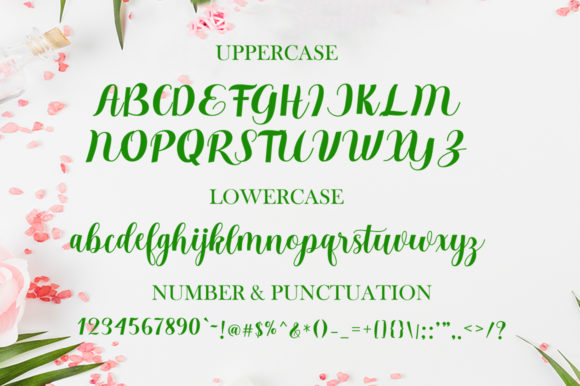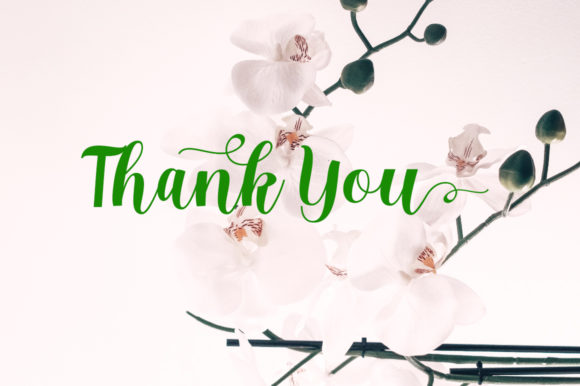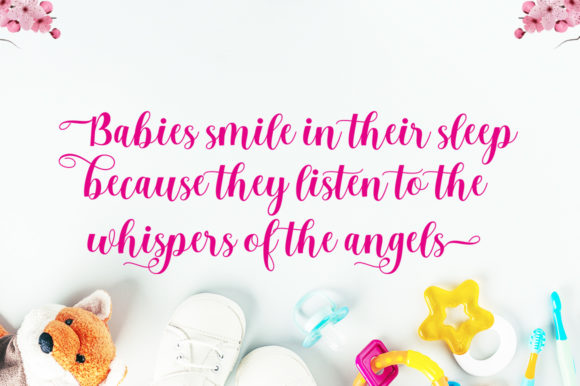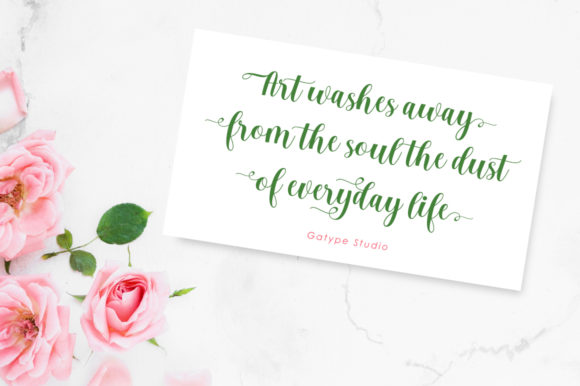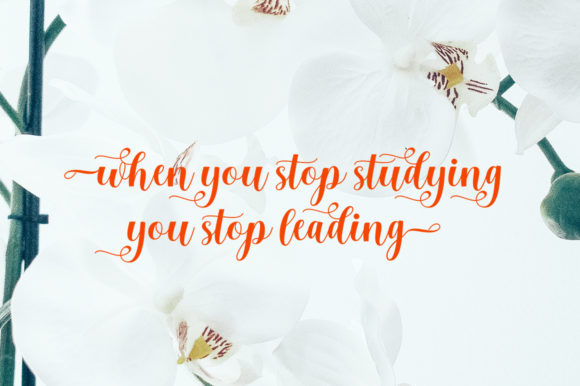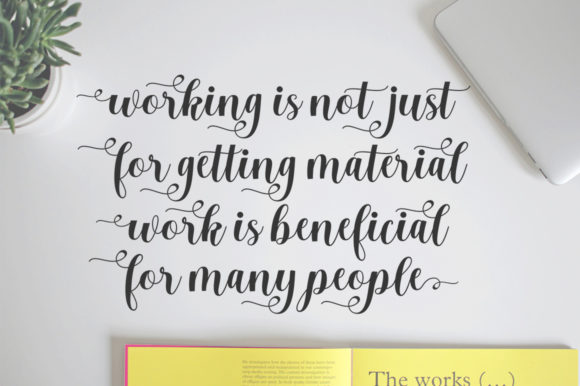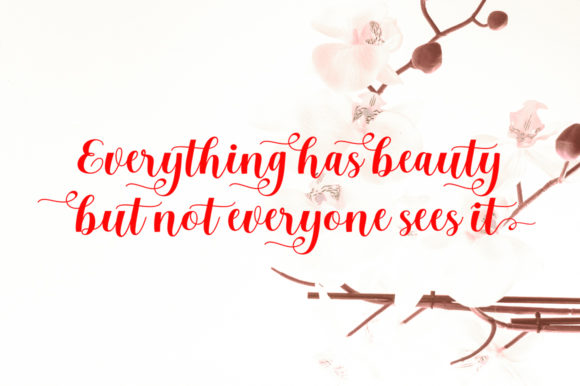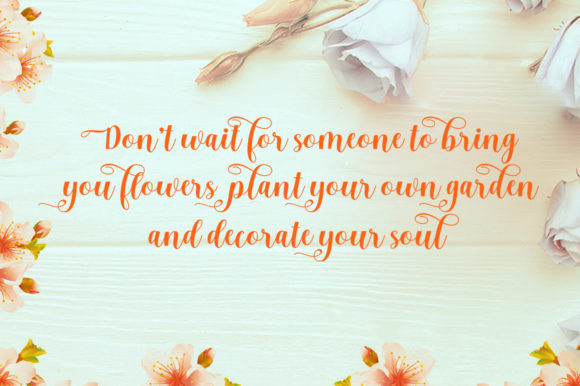
Gidget Font
About Gidget Font
Gidget is an elegant script font with a contemporary atmosphere and impeccable form, inspired by timeless classic calligraphy. Not too thin and not too thick, balanced and varied, Gidget was designed to enhance the beauty of your projects.